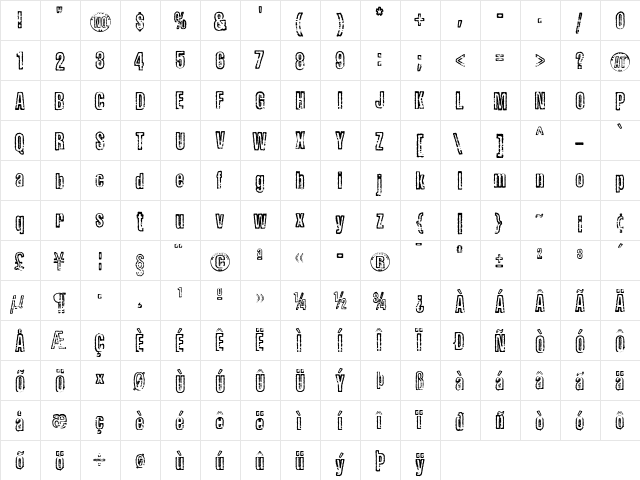
AirMail Regular
| Foundry | Air Mail\ Lunchbox Design-Designed By Adam Roe, Part of the Air Mail Family, |
Design Context for AirMail Typeface
AirMail is a composed and adaptable typeface that performs quietly and consistently across a wide range of design contexts.